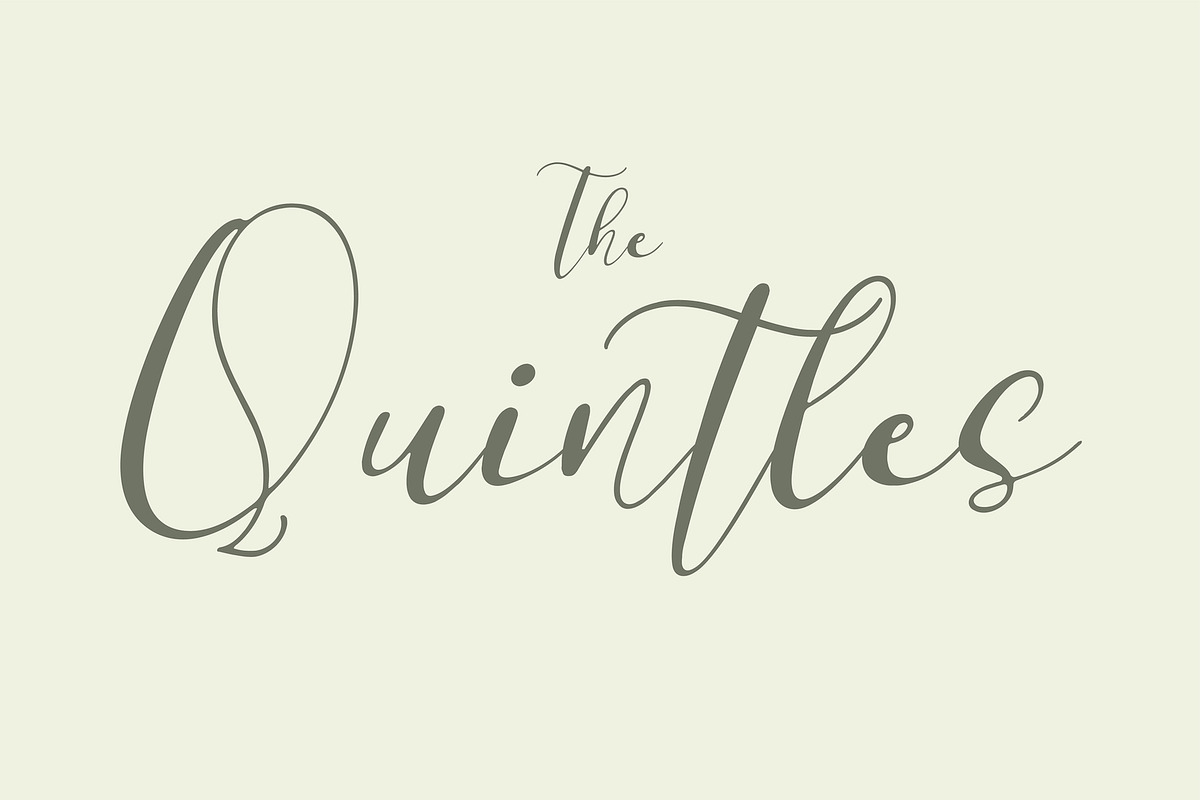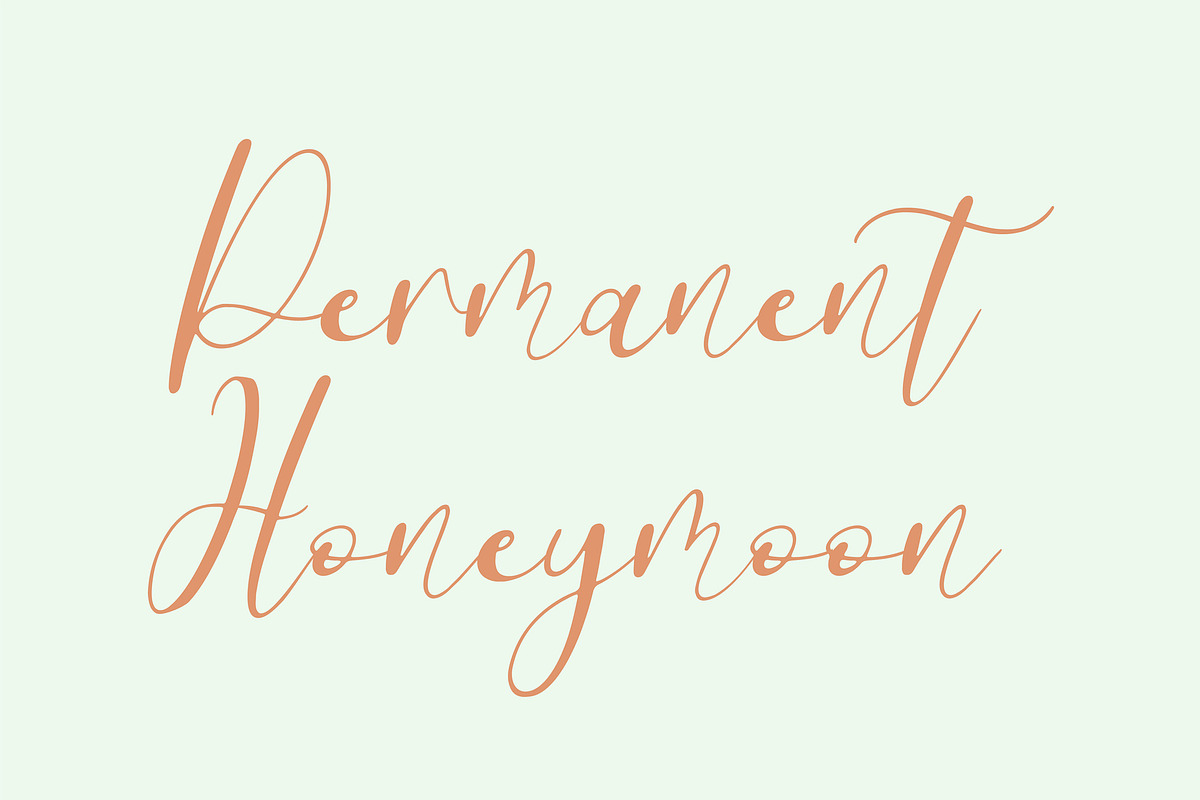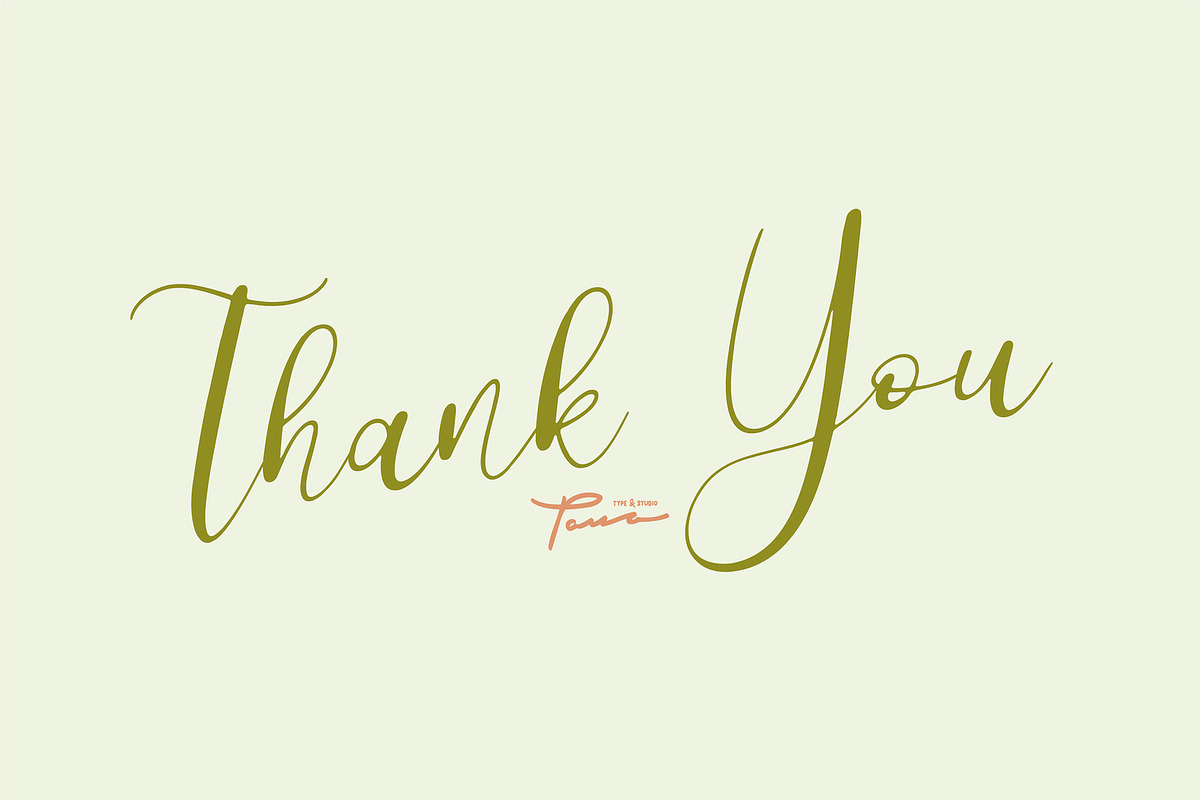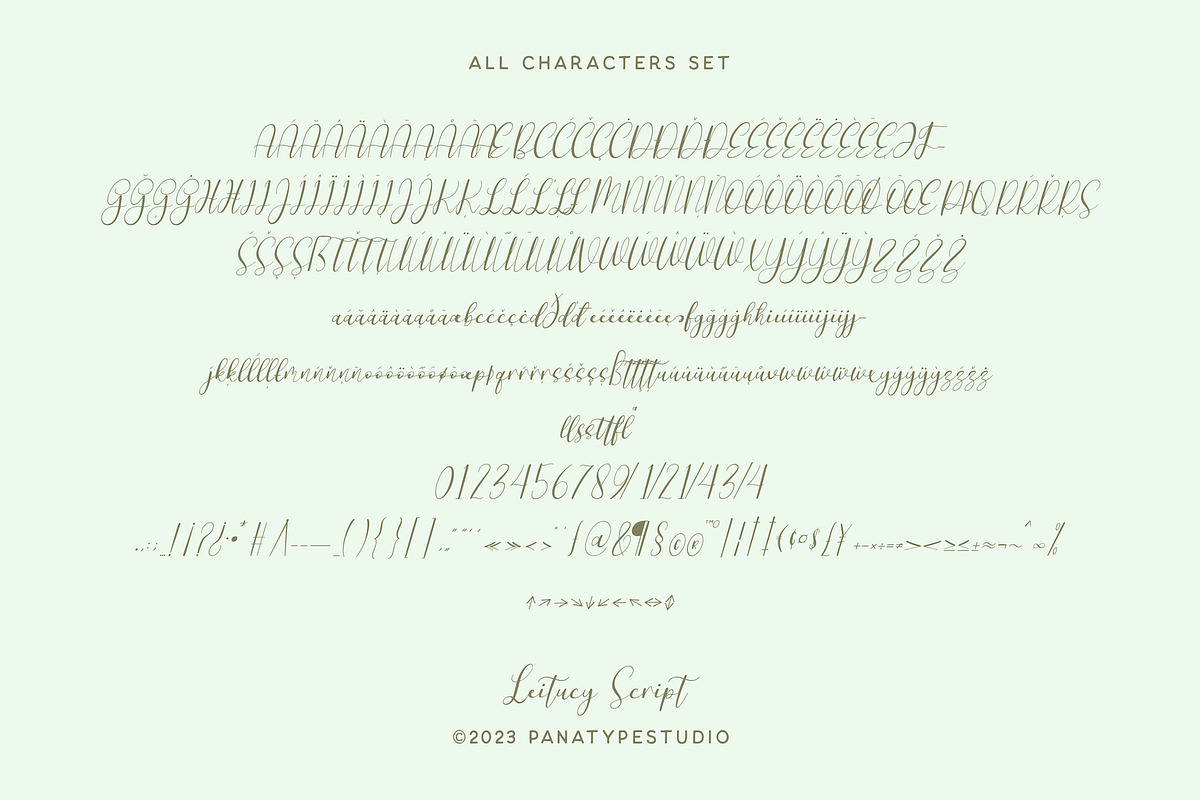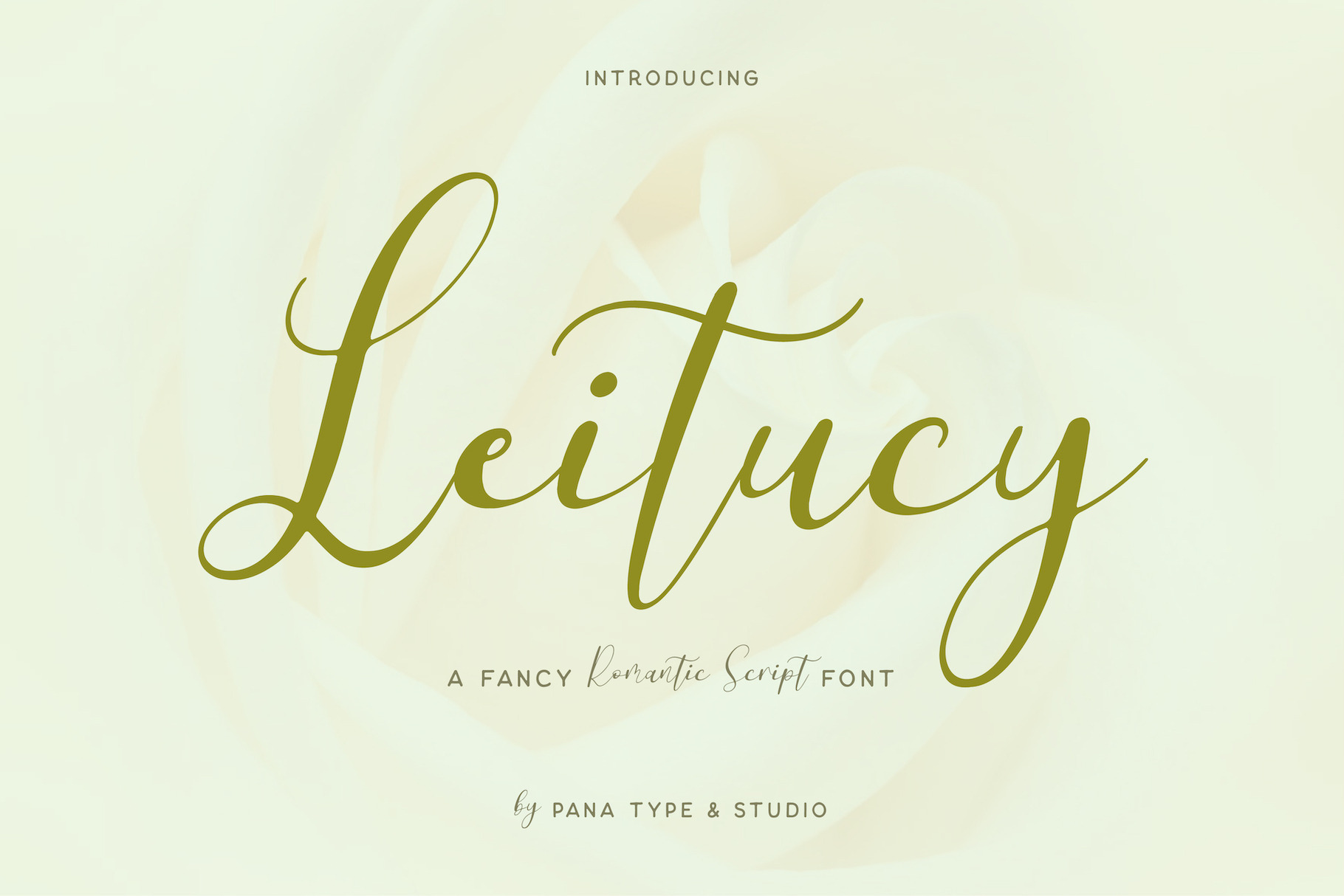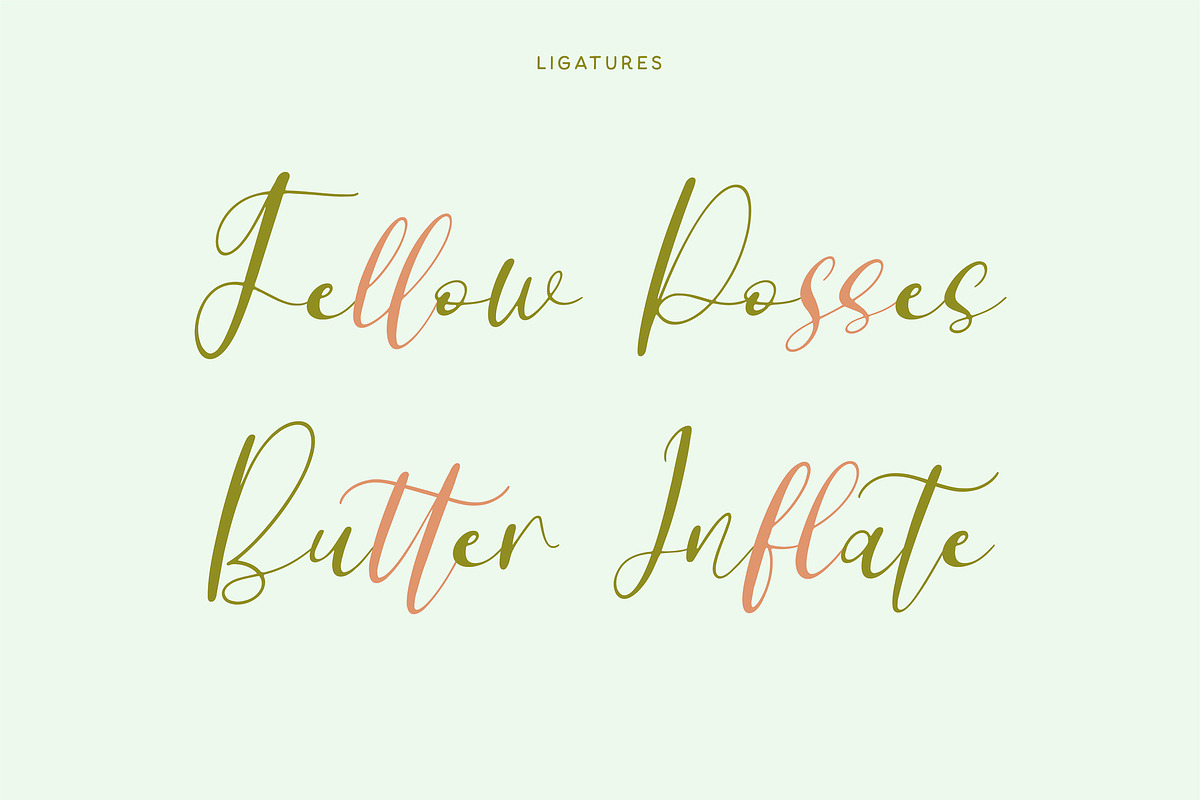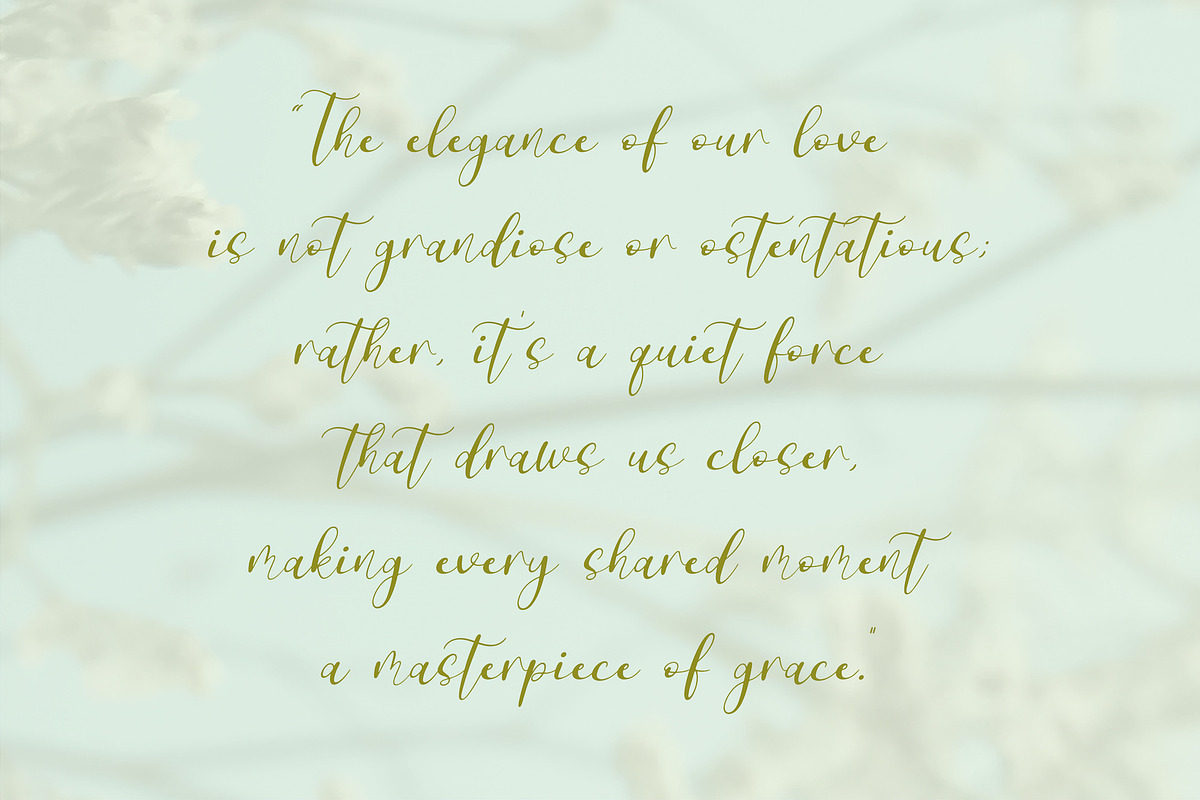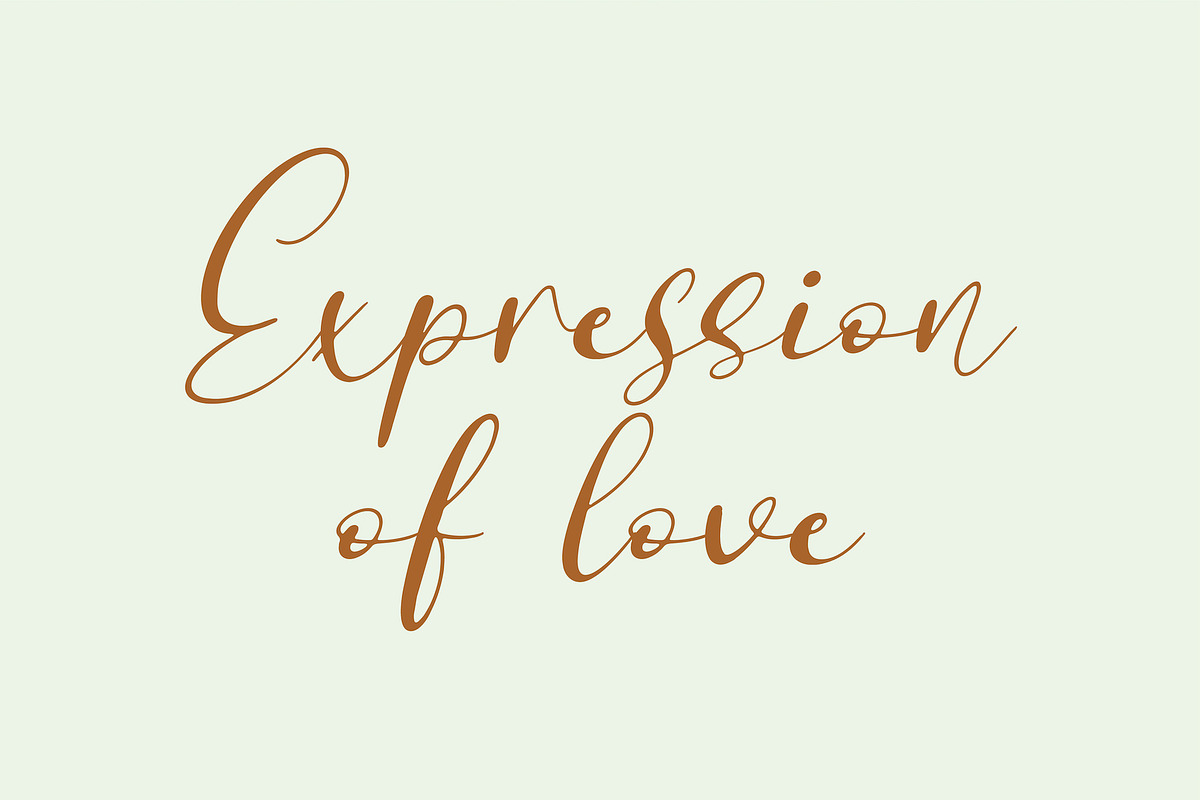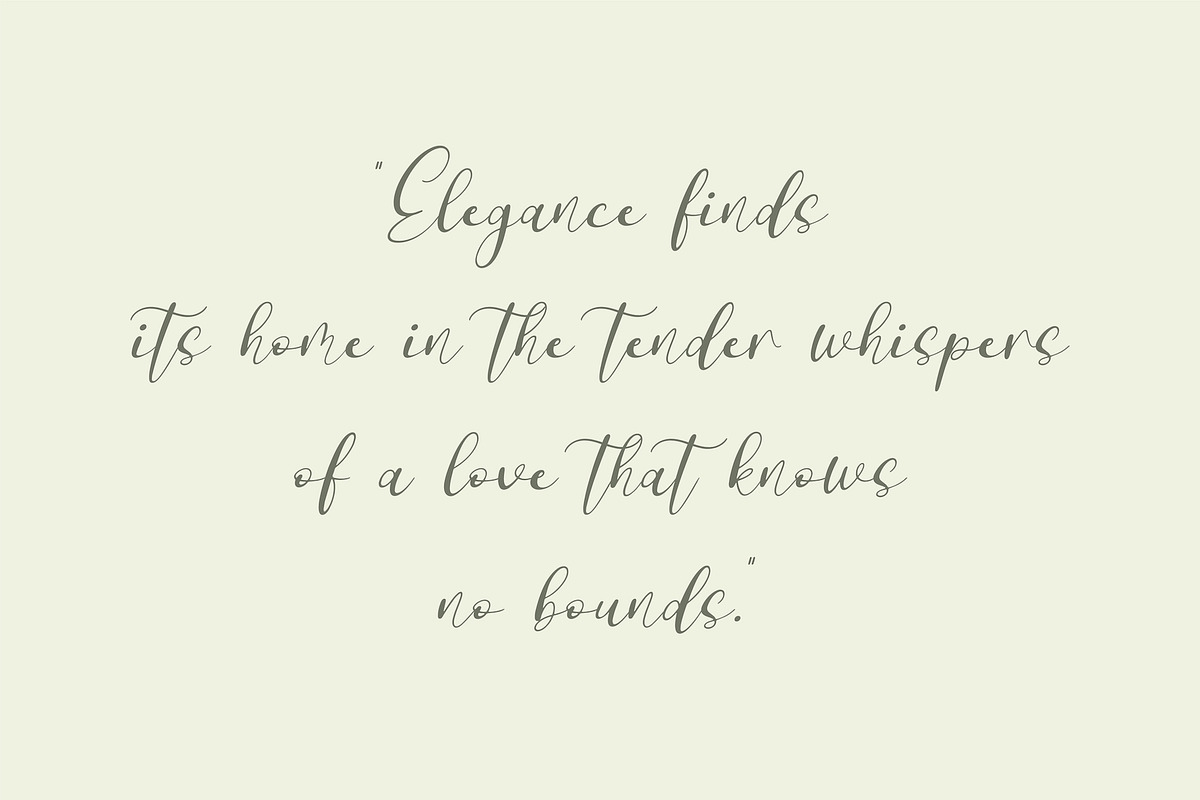
Leitucy Script Font
Leitucy is a casual slanted script font. With high contrast stroke, fun character with a bit of ligatures and alternates. To give you extra creative work. Leitucy font support multilingual more than 100+ language. This font is good for logo design, Social media, Movie Titles, Books Titles, short text even long text letters, and good for your secondary text font with sans or serif. Make stunning work with Leitucy font.